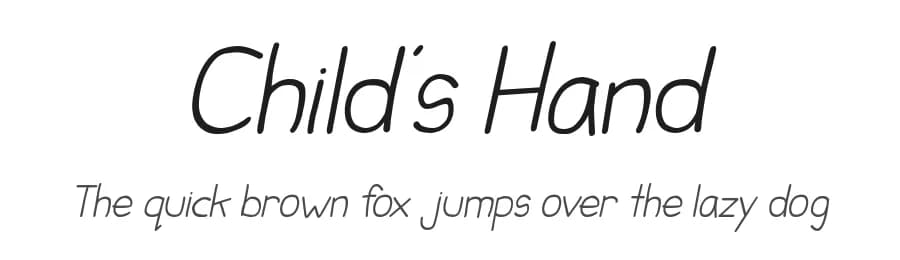
About Child's Hand Font
ChildΒs Hand is a simple and cursive handwritten font. Simple and easy to use, this font will be very beautiful if you mix it with your various craft designs.
Child's Hand Font is a script font that shines as a display or heading face. Pair it with a clean sans-serif or serif font for body text β the contrast creates a clear hierarchy while the two styles stay balanced and easy to read.